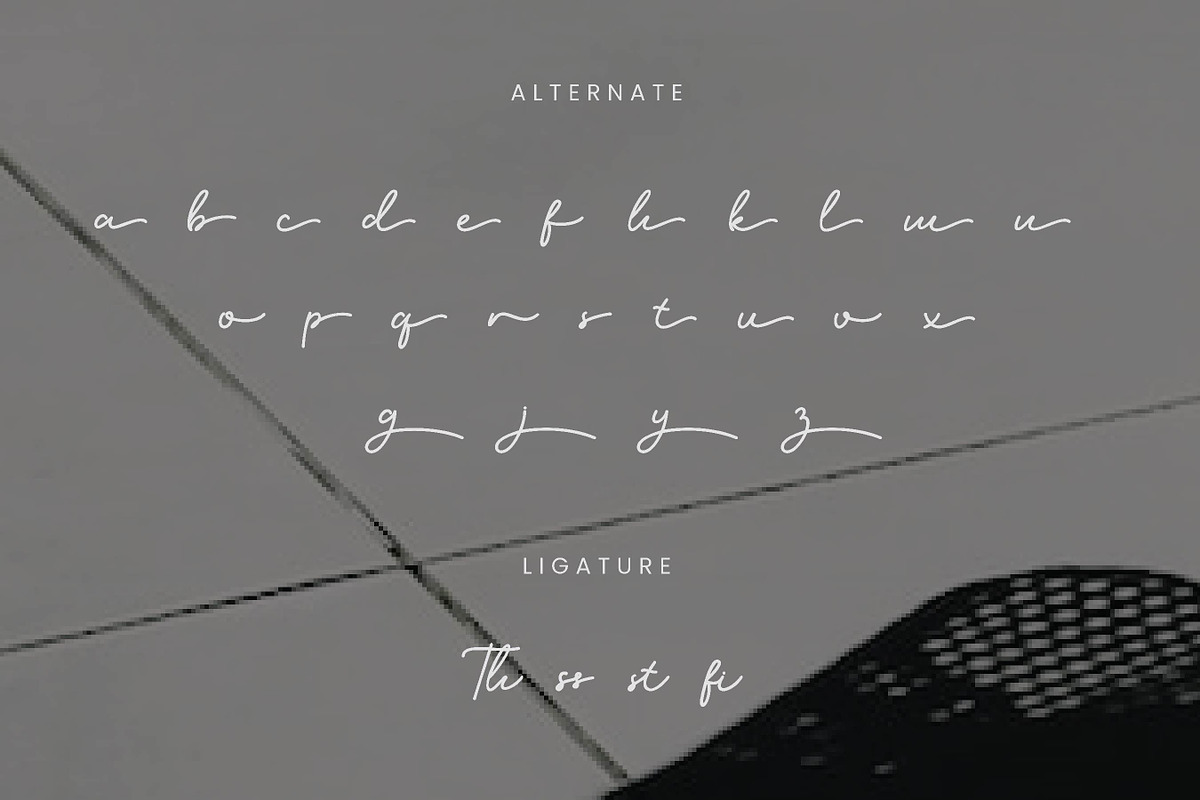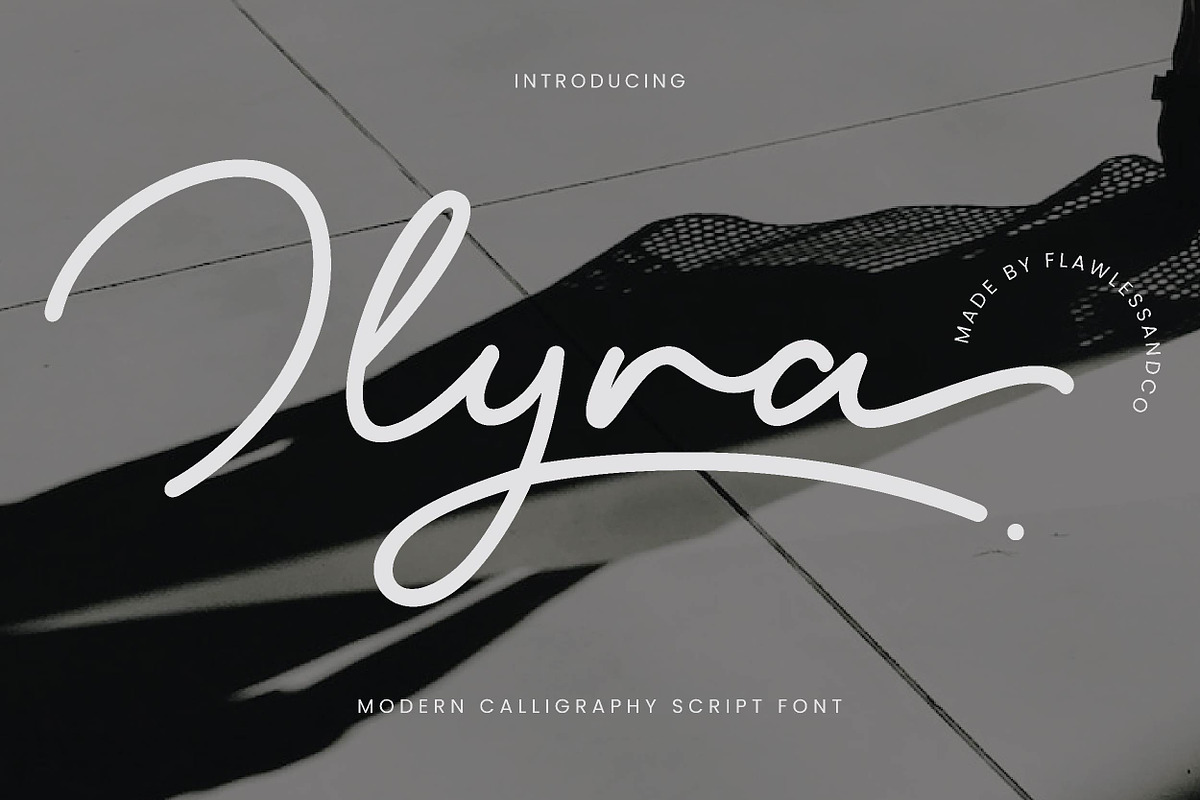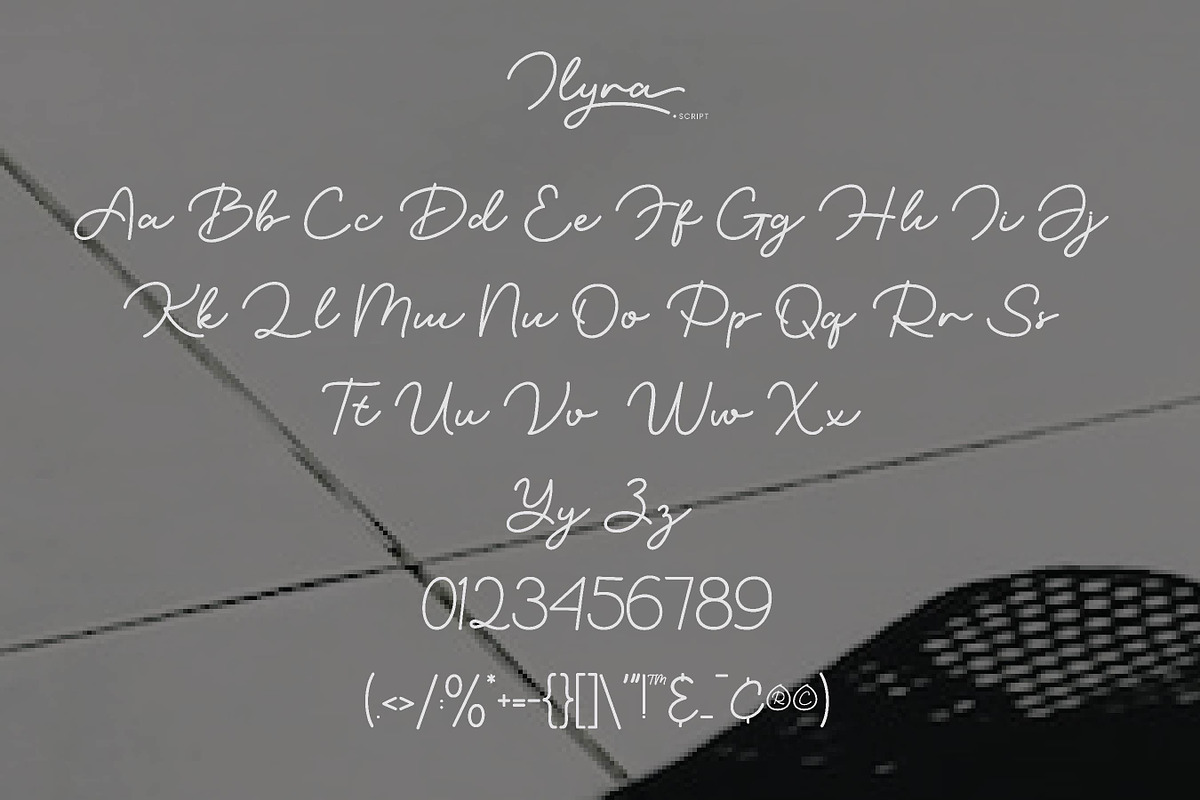
Ilyra - Modern Calligraphy Script Fo
Introducing "Ilyra" - A Modern Calligraphy Script Font. Step into the world of modern elegance with "Ilyra," a sophisticated calligraphy script font that seamlessly blends classic charm with contemporary flair. With its graceful strokes and versatile styling, "Ilyra" is designed to convey a sense of timeless beauty and modern sophistication.
Multilingual Uppercase alphabet A-Z Lowercase alphabet a-z Alternate Character Numbers 0-9 Some punctuation